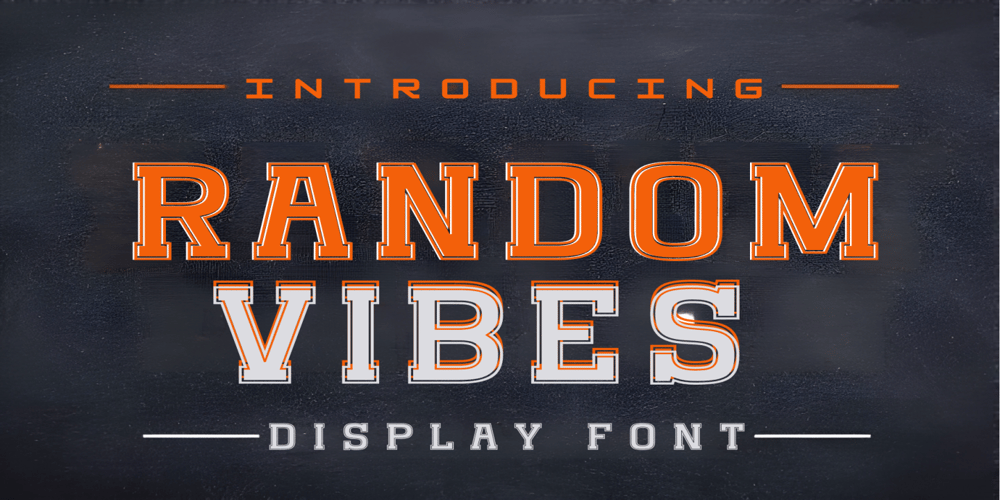
Random Vibes Font Family was designed by Bo Berndal and published by Adita Fonts. Random Vibes contains 1 styles and family package options. Random Vibes is a Classic vintage font, outline bold display font. It is suitable for any winter and holiday branding project, product packaging, invitation, quote, t-shirt, label, poster, text effect, label, and logo that you wish to develop.